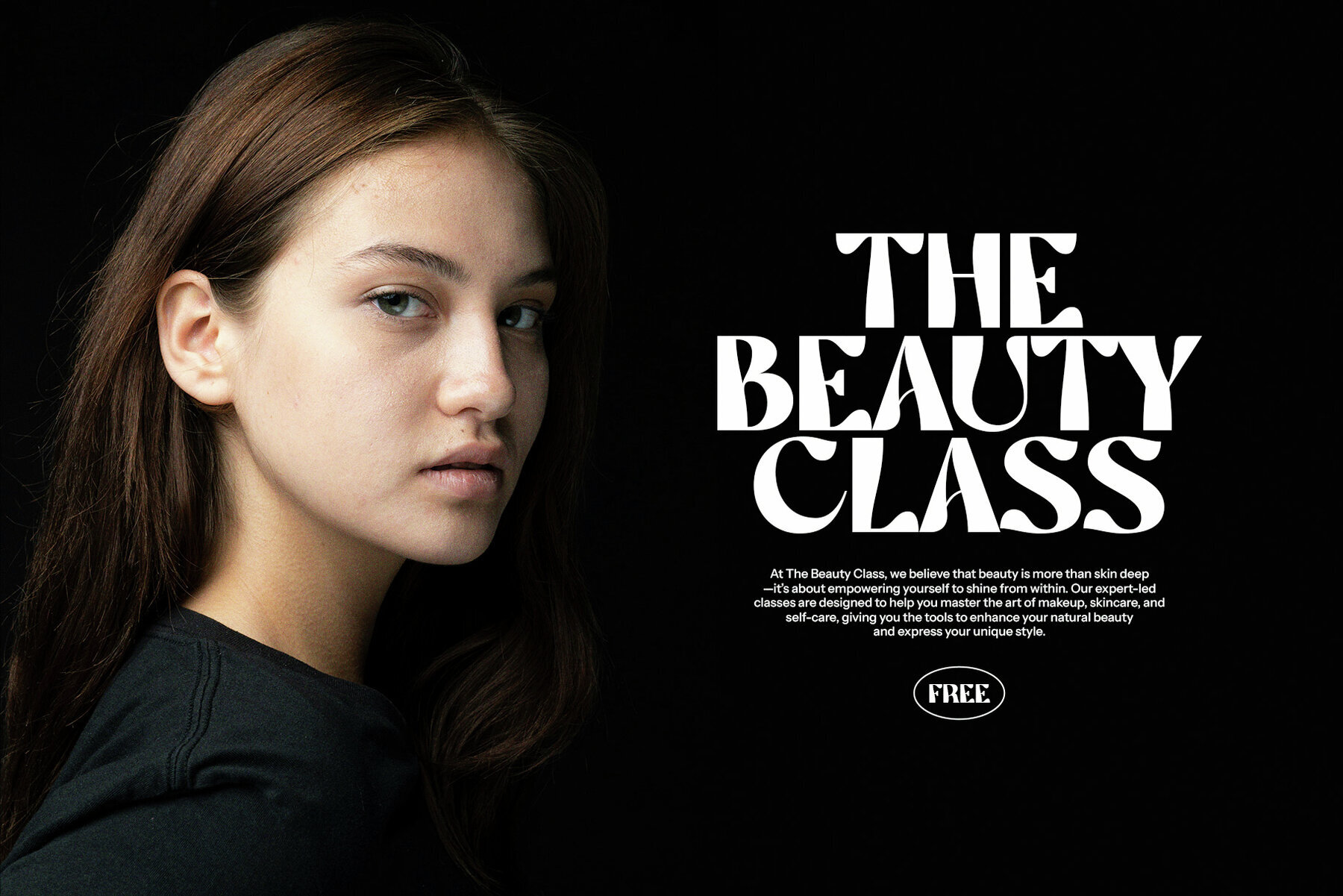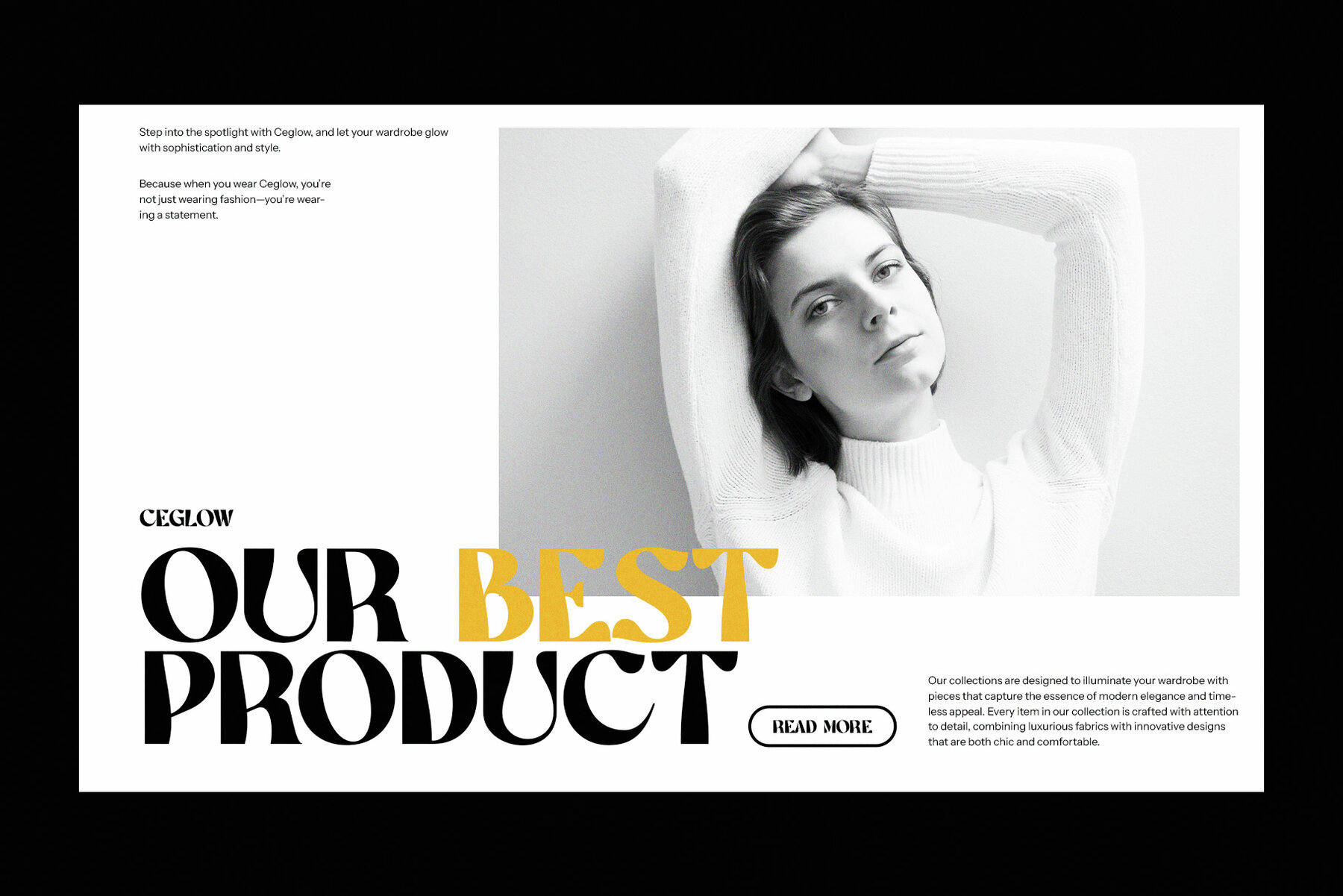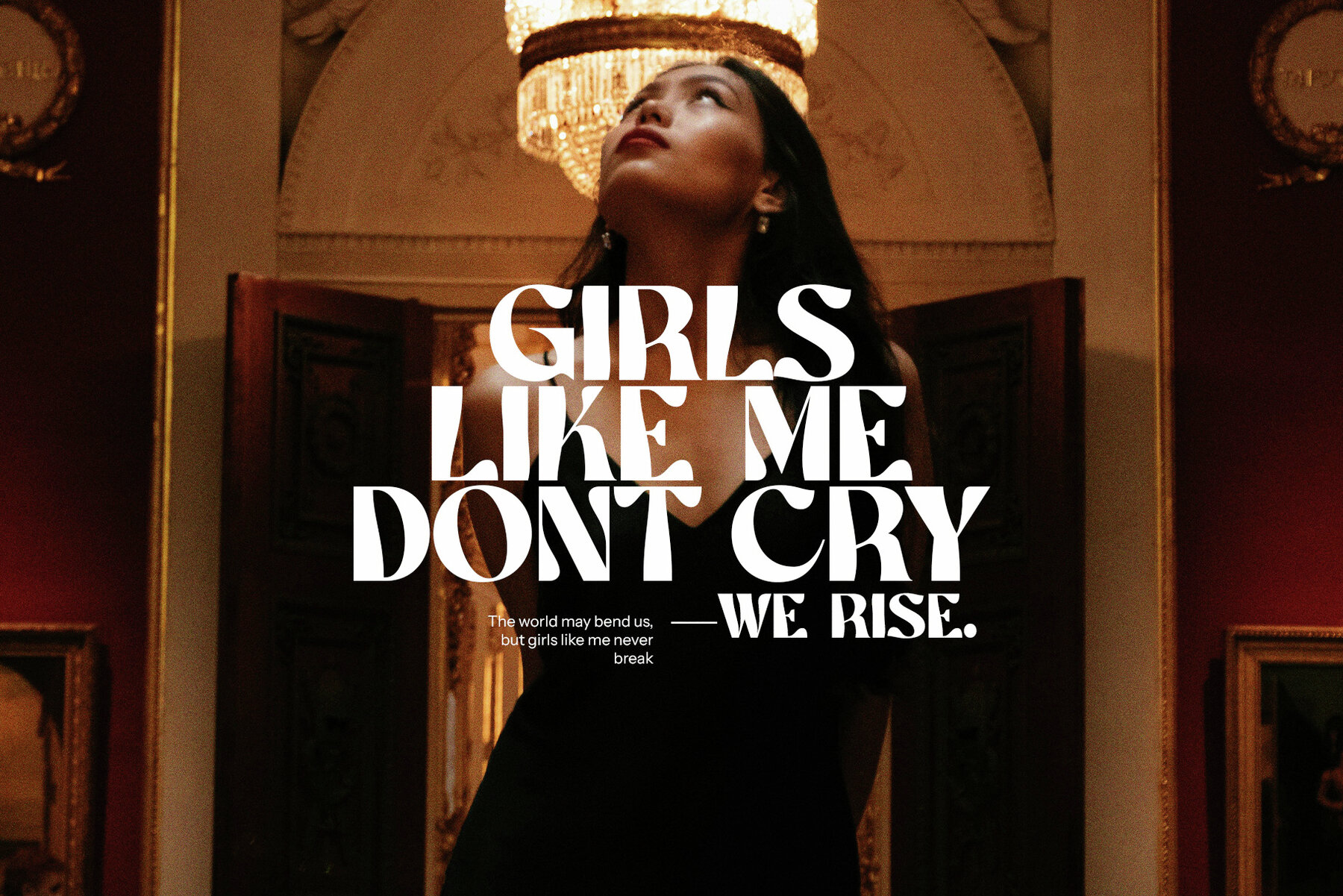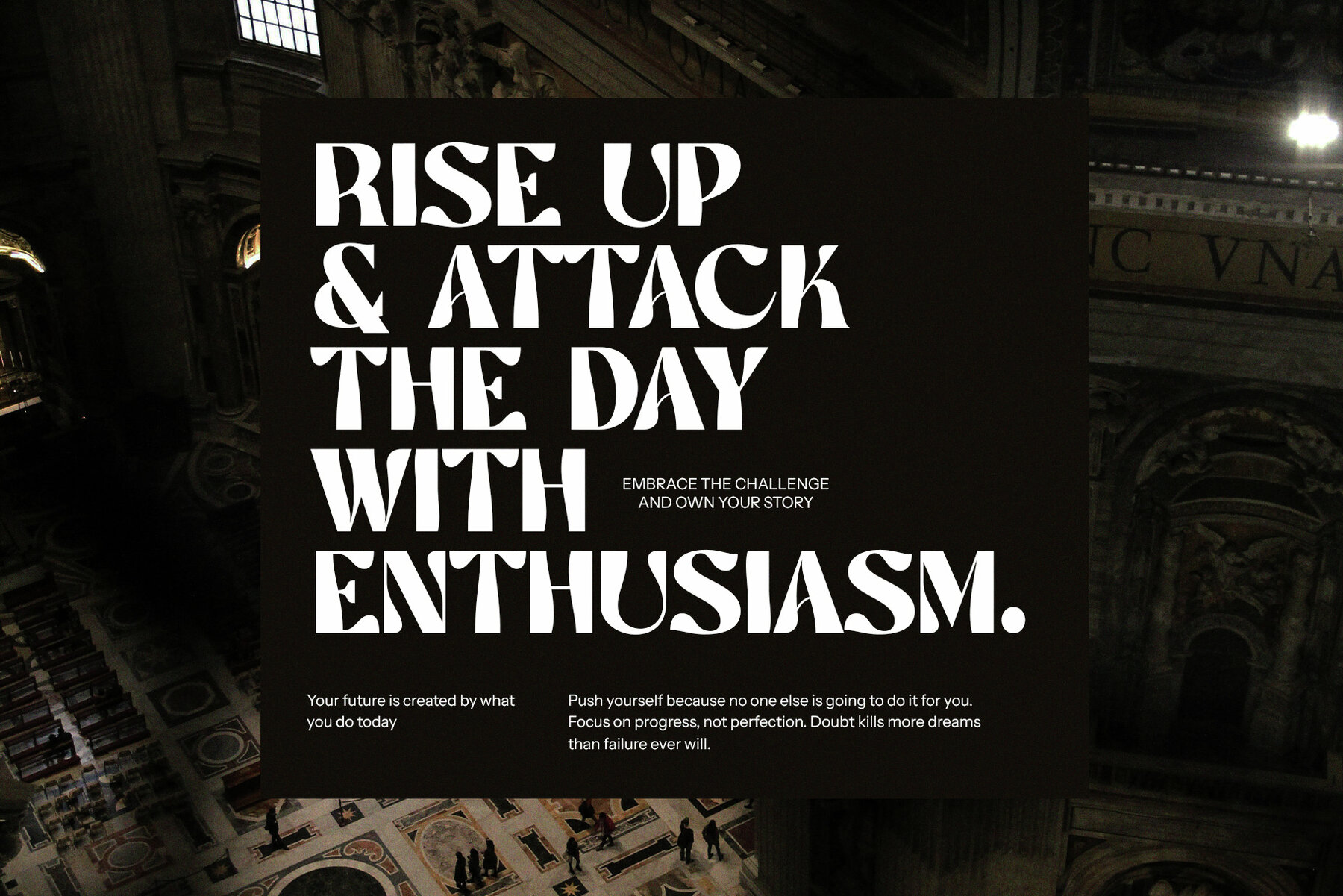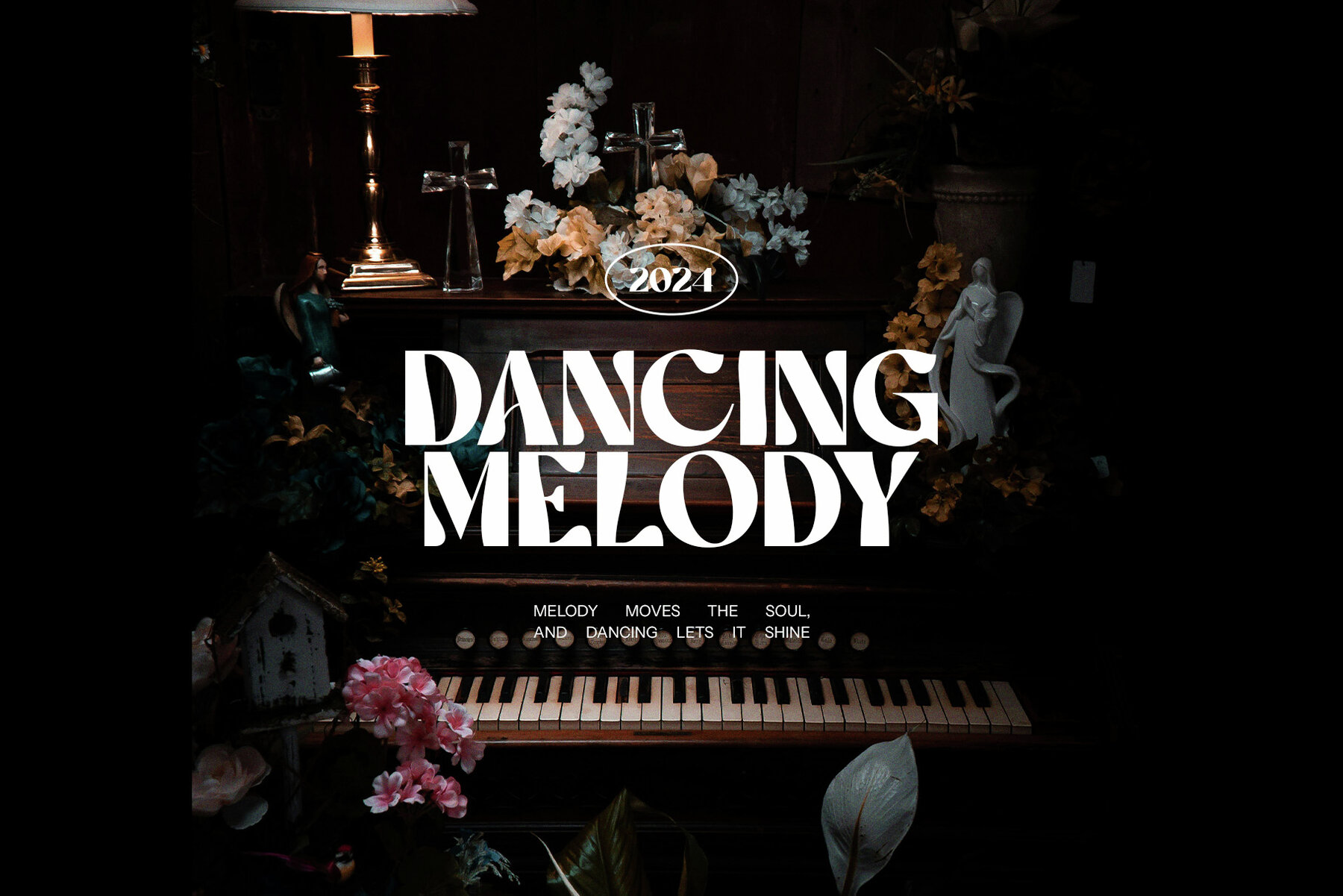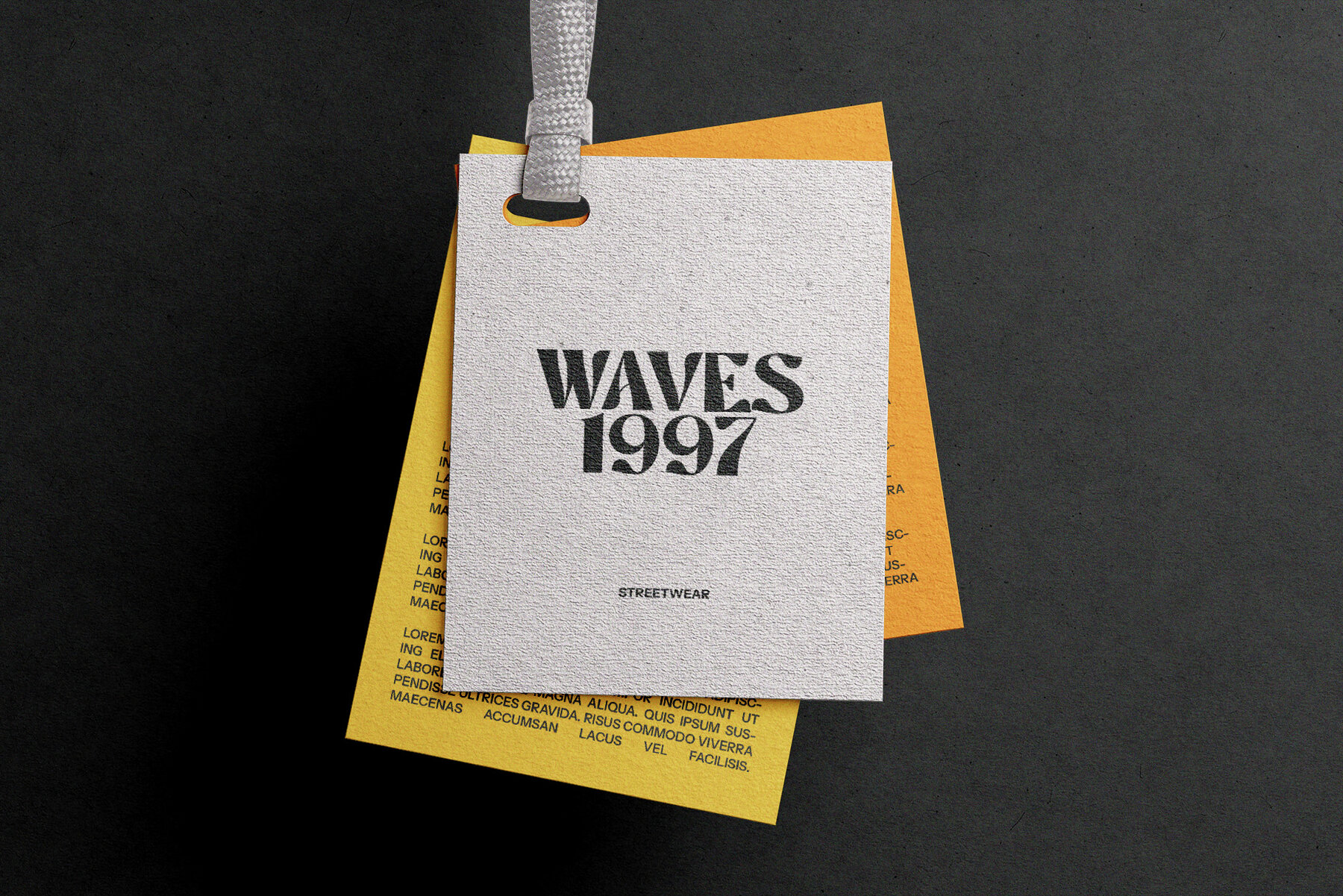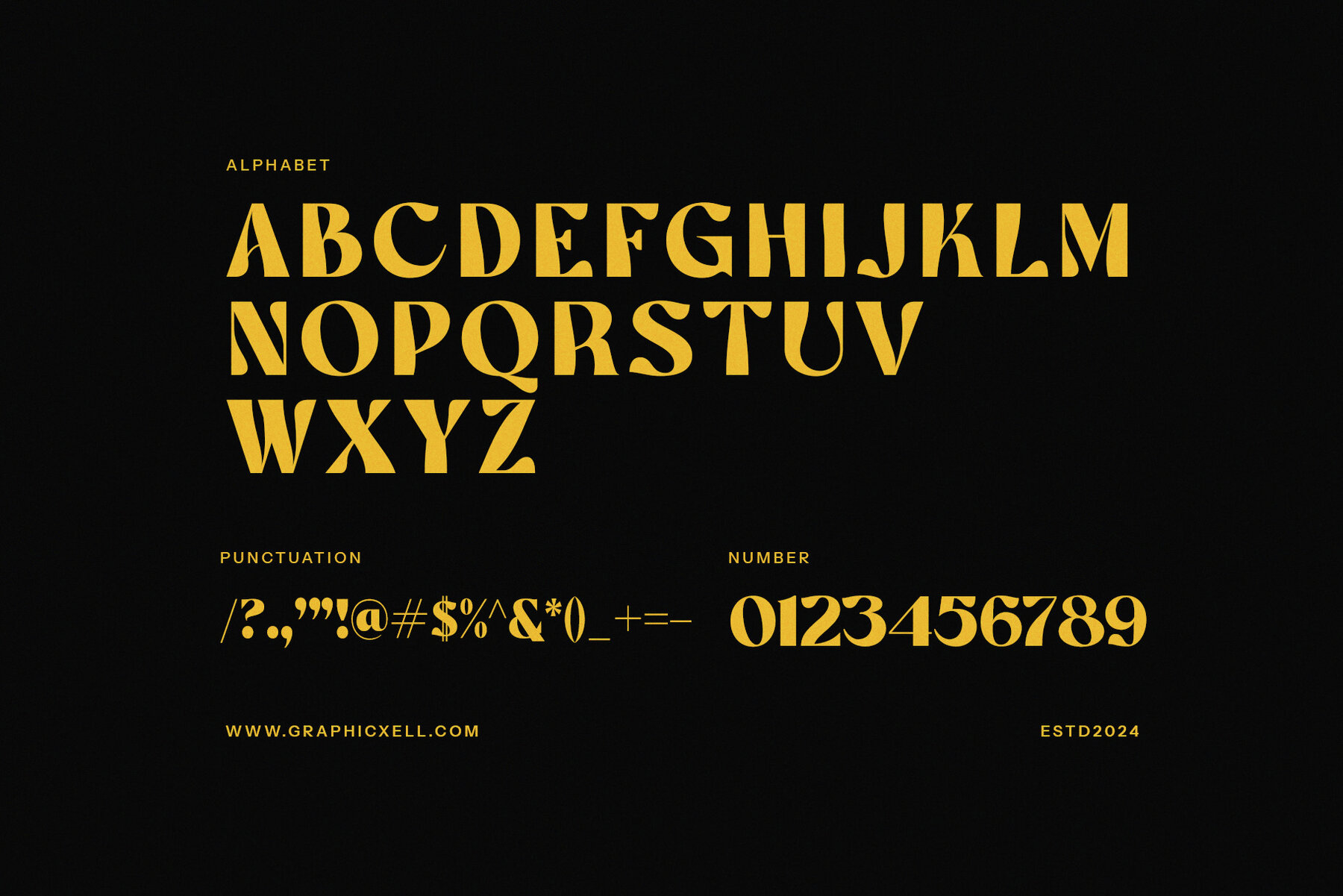
Mands Font
Mands Regular
Mands Modern Typeface is a sophisticated modern serif typeface imbued with a fashionable charm. Its delicate curves and elegant style, accented by classy ligatures, make it a standout choice for diverse design projects. Influenced by calligraphy, this font adds a contemporary touch, ideal for beauty designs, elegant crafting, layout designs, ad branding, and design templates.
Featuring smooth strokes and varied line thickness, Mands Modern Typeface offers a refined look for any design. Whether for personal or commercial projects, this typeface adapts seamlessly, helping you achieve a modern, beautiful aesthetic. Enhance your graphic design projects with the elegance and sophistication of Mands Modern Typeface.